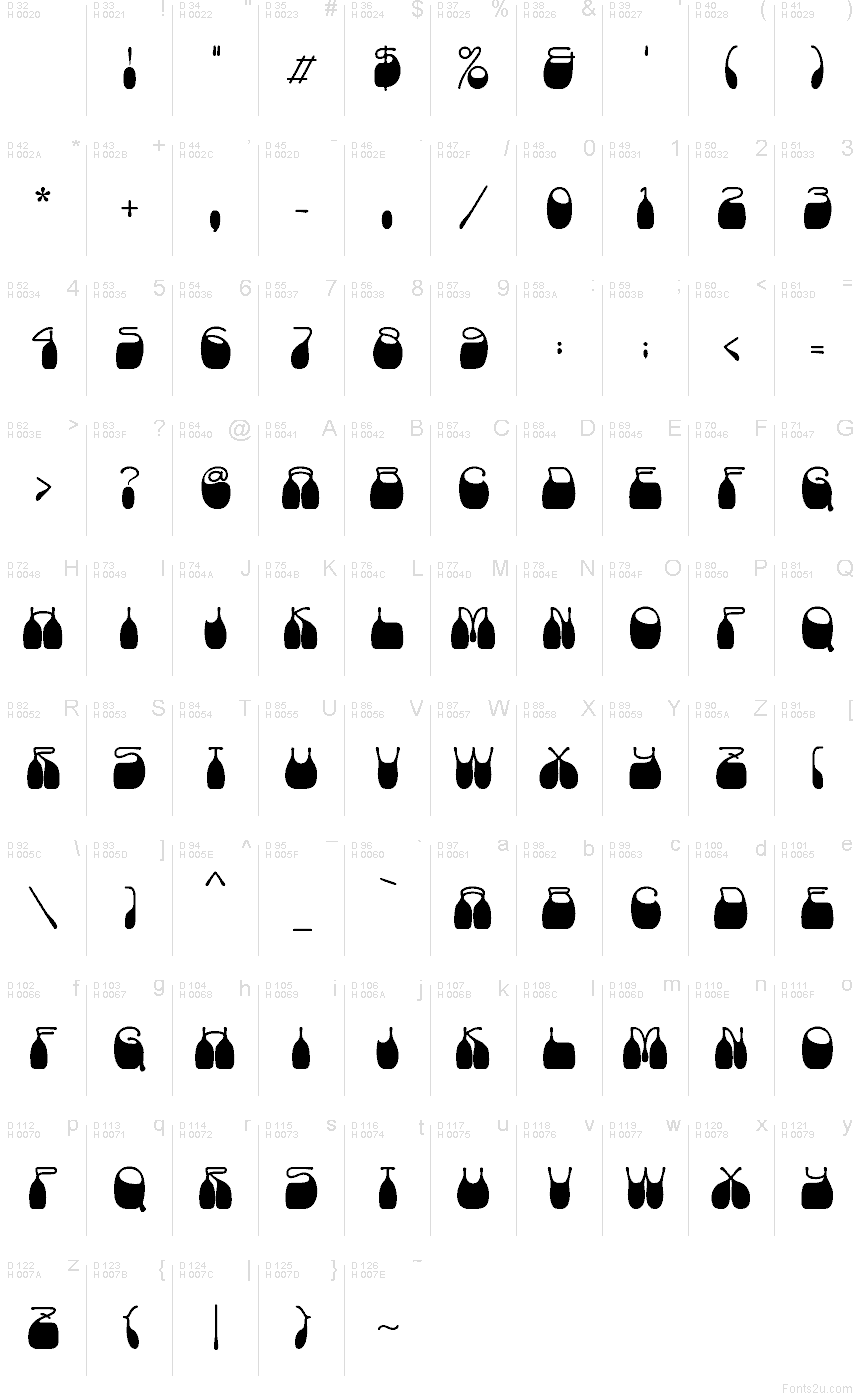
Hostile Portia font by Letterhend Studio is a free groovy display font with rounded, swollen letterforms and soft, flowing curves. Its shapes feel almost liquid, with narrow joins, oval openings, and a steady rhythm that gives the whole design a 1970s poster-like character.
Hostile Portia works well for album covers, event flyers, retro branding, packaging, and editorial accents where a decorative display face can carry the main title. This free font brings enough shape and movement to suit short logos, social media graphics, and seasonal promos without needing extra ornament.